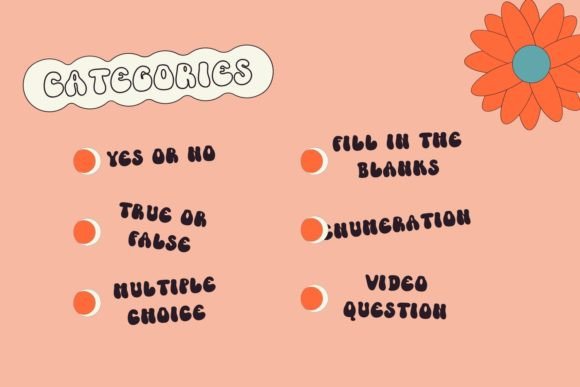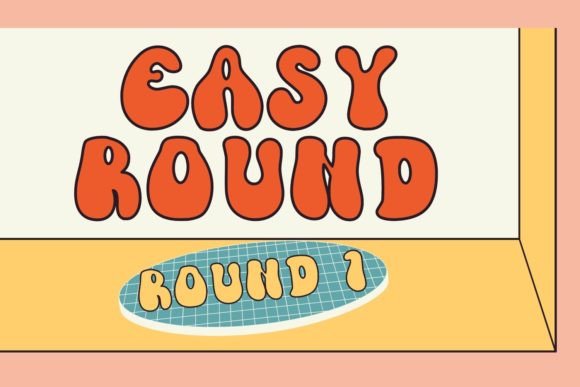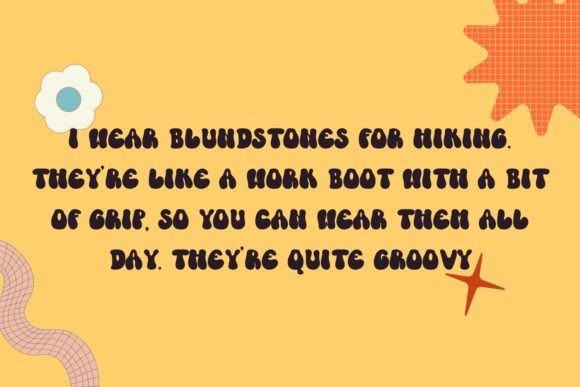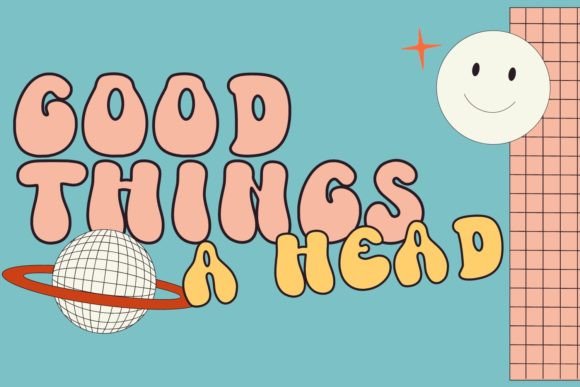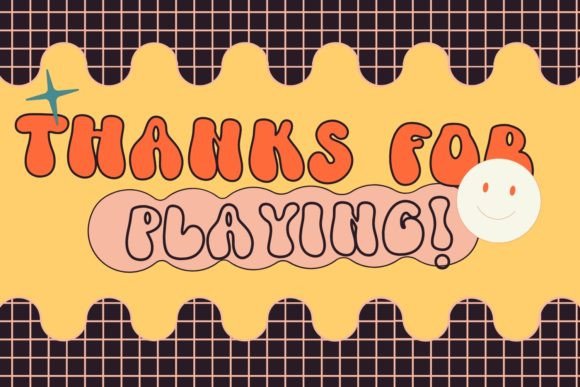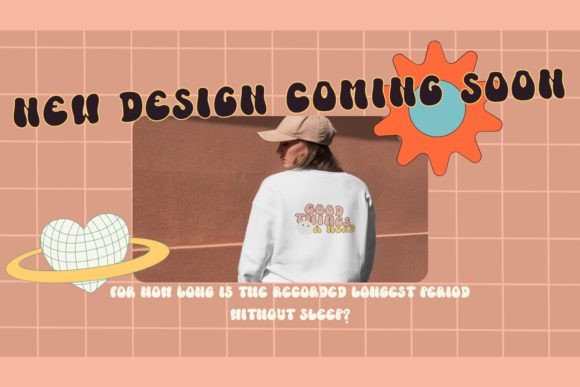
Introducing Eleven Planet Font: The Fun and Groovy Typeface for Creative Projects
Are you looking for a font that adds a cool, retro touch to your designs? Look no further than Eleven Planet Font! This fun and groovy typeface is perfect for a wide range of creative projects, from branding and logos to wedding designs, media posts, and product packaging. In this article, we’ll explore the features and benefits of Eleven Planet Font, and show you how it can elevate your designs to the next level.
A Font that’s Out of this World
Eleven Planet Font is a unique and eye-catching typeface that’s sure to grab attention. Its fun and groovy vibe makes it perfect for designers who want to add a playful touch to their projects. Whether you’re working on a branding project, designing a logo, or creating social media graphics, Eleven Planet Font is the perfect choice.
One of the best things about Eleven Planet Font is its versatility. It’s perfect for a wide range of projects, including:
- Branding projects: Create a memorable brand identity with Eleven Planet Font.
- Logos: Design a fun and eye-catching logo that stands out from the crowd.
- Wedding designs: Add a touch of whimsy to your wedding invitations, stationery, and decorations.
- Media posts: Create engaging social media graphics that grab attention.
- Advertisements: Make your ads stand out with a fun and groovy font.
- Product packaging: Add a cool, retro touch to your product packaging.
- Product designs: Create unique and eye-catching product designs.
- Labels: Design fun and colorful labels for your products.
- Photography: Add a watermark or text overlay to your photos with Eleven Planet Font.
- Invitations: Create fun and playful invitations for parties, events, and more.
- Stationery: Add a touch of whimsy to your stationery and correspondence.
Why Choose Eleven Planet Font?
So why choose Eleven Planet Font for your next project? Here are just a few reasons:
- Unique and eye-catching: Eleven Planet Font is a one-of-a-kind typeface that’s sure to grab attention.
- Fun and groovy: Add a playful touch to your designs with Eleven Planet Font.
- Versatile: Use Eleven Planet Font for a wide range of projects, from branding and logos to wedding designs and product packaging.
Tips for Using Eleven Planet Font
Here are a few tips for getting the most out of Eleven Planet Font:
- Use it sparingly: Eleven Planet Font is a bold and eye-catching font, so use it sparingly to avoid overwhelming your design.
- Experiment with colors: Eleven Planet Font looks great in a variety of colors, so don’t be afraid to experiment and find the perfect hue for your design.
- Pair it with other fonts: Eleven Planet Font pairs well with a variety of other fonts, so try pairing it with a sans-serif font for a fun and playful look.